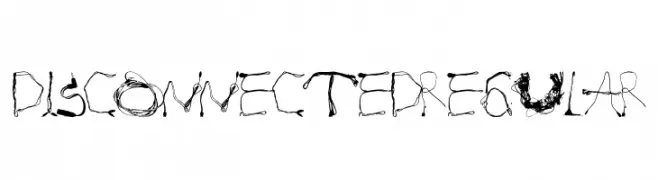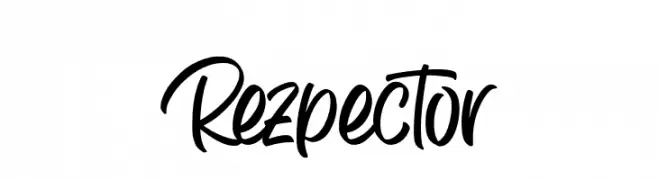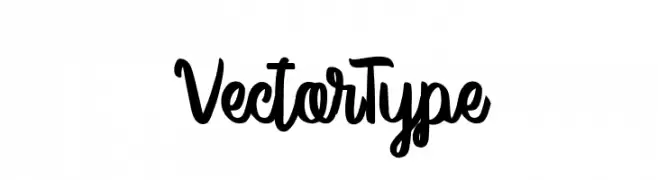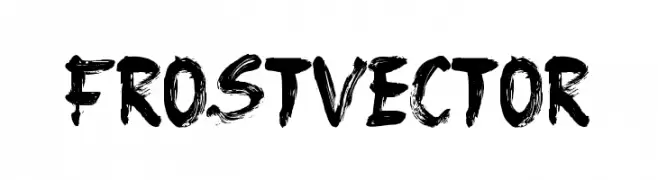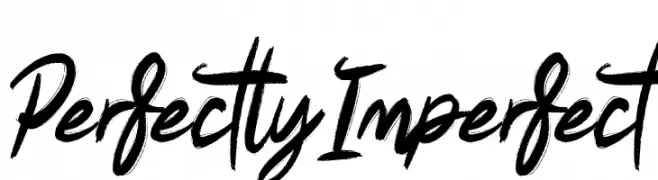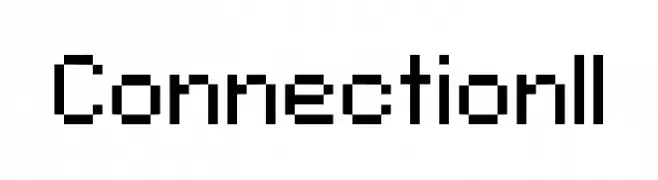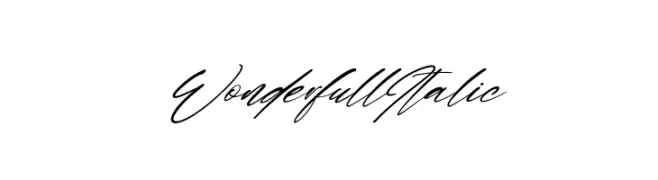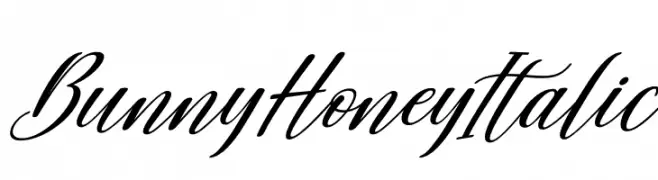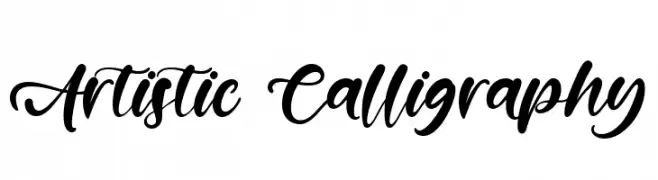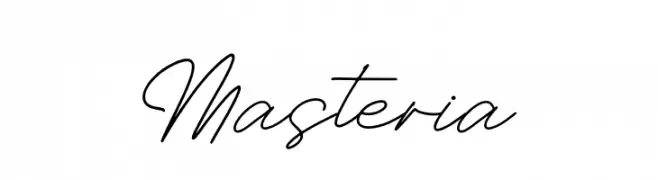
A creative font with characters resembling tangled wires, offering a unique and artistic look.
A bold, flowing script font with dynamic, energetic curves.
A bold, playful script font with a hand-drawn, connected style.
A bold, brushstroke font with a textured, hand-painted appearance.
An elegant, flowing script font with a handwritten signature style.
A playful handwritten font with looping strokes and dynamic line thickness.
A bold, expressive handwritten font with dynamic strokes and fluid movement.
A pixelated, blocky font with a retro digital aesthetic.
An elegant, flowing script font with a sophisticated and artistic flair.
A cursive, handwritten font with elegant, flowing italic characters.
An elegant cursive font with flowing loops and artistic swirls.
A graceful and flowing script font with a handwritten style.
A flowing, artistic calligraphy font with elegant curves and dynamic movement.
A graceful script font with fluid, interconnected strokes and elegant curves.
A cursive, handwritten-style font with elegant, flowing lines.
A bold, distressed font with a grunge, textured style.
A flowing, cursive font with elegant, connected letters and decorative flourishes.
An artistic, swash-style font with flowing, decorative curves.
A bold, expressive handwritten font with fluid, interconnected strokes.
A casual, flowing handwritten font with interconnected cursive letters.
An elegant, flowing script font with natural handwriting style.
A playful, handwritten font with fluid strokes and artistic flair.
A flowing, cursive script font with elegant, interconnected strokes.
A graceful script font with flowing, connected letters and ornate uppercase characters.
A bold, flowing script font with a dynamic, handwritten style.
A dynamic, handwritten font with fluid strokes and lively contrast.
A bold, cursive handwritten font with a lively and spontaneous style.
A dynamic and fluid script font with elegant, flowing cursive letters.
A dynamic, flowing script font with elegant cursive letterforms.
A lively and expressive script font with flowing, interconnected letterforms.
A dynamic, rough script font with an italic slant and hand-drawn appearance.
A bold, handwritten font with expressive, dynamic strokes.
A dynamic, cursive font with fluid, handwritten strokes.
A dynamic, freestyle handwritten font with bold, angular uppercase and fluid lowercase letters.
A dynamic, cursive script font with a natural, handwritten style.